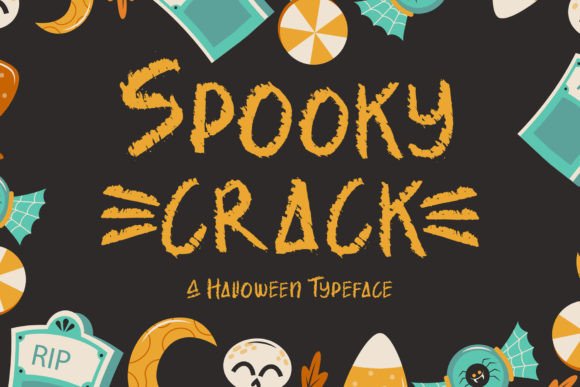
Step into the eerie and captivating world of Spooky Crack, a display font that will ignite your creativity and cast a spell on your designs! This enchanting font is the perfect companion for unleashing your imagination and conjuring up spine-tingling masterpieces.
Crafted by the masterminds at AEN Creative Studio, Spooky Crack is a visual treat that will add a touch of haunting elegance to your projects. Its intricate strokes and eerie curves dance across the page, evoking the spirit of Halloween and inviting you to explore the unknown.
With Spooky Crack, you'll have the power to transform your designs into haunting masterpieces. Picture it adorning invitations to a costume party, adding a spine-chilling element to your Halloween posters, or gracing the covers of books that are sure to send shivers down your spine. The possibilities are endless!
But Spooky Crack is not just a pretty face—it's also incredibly versatile. Its unique style makes it perfect not only for Halloween-themed projects but also for any design that demands a touch of the extraordinary. Whether you're creating logos, brochures, or social media graphics, Spooky Crack will add an unforgettable touch of intrigue and allure.
So why settle for ordinary fonts when you can unleash the enchanting power of Spooky Crack? Prepare to be captivated by its haunting beauty and let your creativity run wild. Spooky Crack is your gateway to a world of design that's both eerie and irresistible. Embrace the darkness and let Spooky Crack cast its spell on your next project!